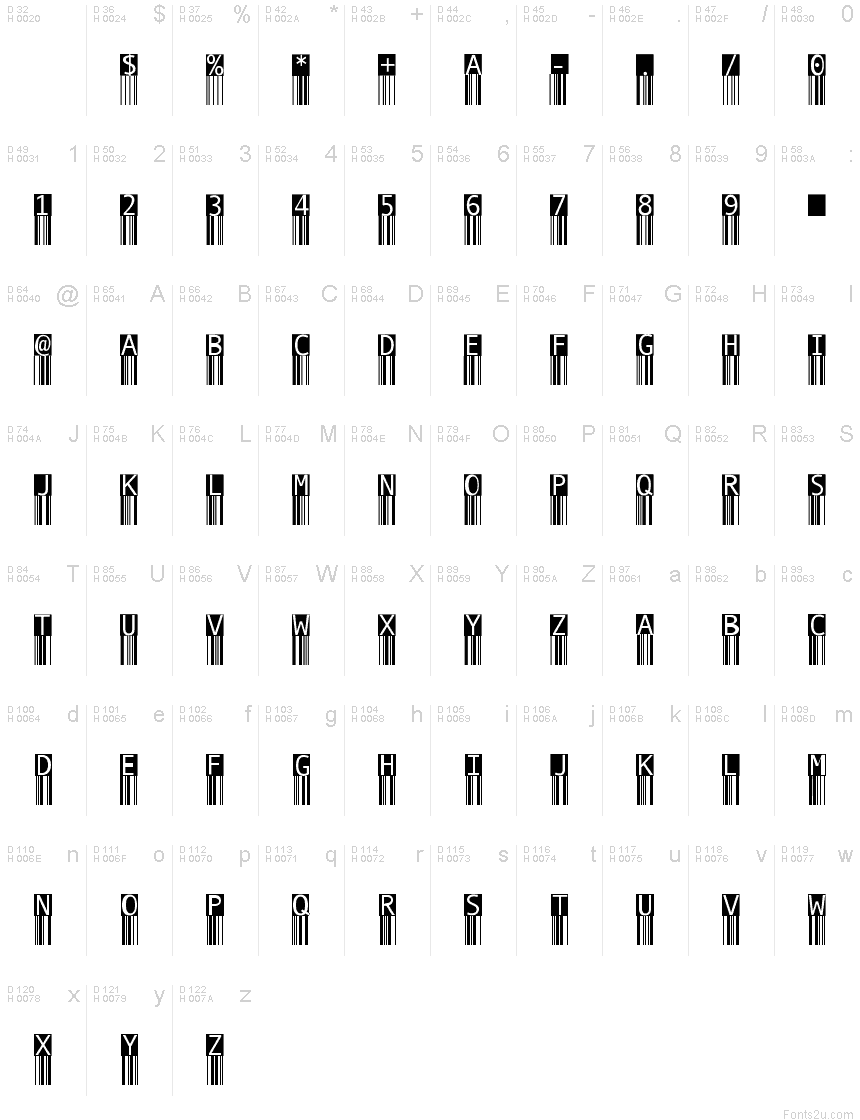
BarMKode-Inverse
BarMKode Inverse font by M. Klein Fonteria is a free barcode dingbat typeface in the BarMKode family. It gives you crisp, scan-ready stripes with that cool “inverted” punch-like a label pulled fresh from a thermal printer, bold and slightly industrial. Drop it in and your layout instantly reads as coded, tracked, and official.
Using BarMKode Inverse, you can add believable barcode texture to packaging mockups, product tags, shipping labels, price stickers, tech posters, zines, album covers, and gritty brand patterns. Keep it large so the bars stay clean, and pair it with a no-nonsense sans (think neutral grotesk) to let this free font do the talking.